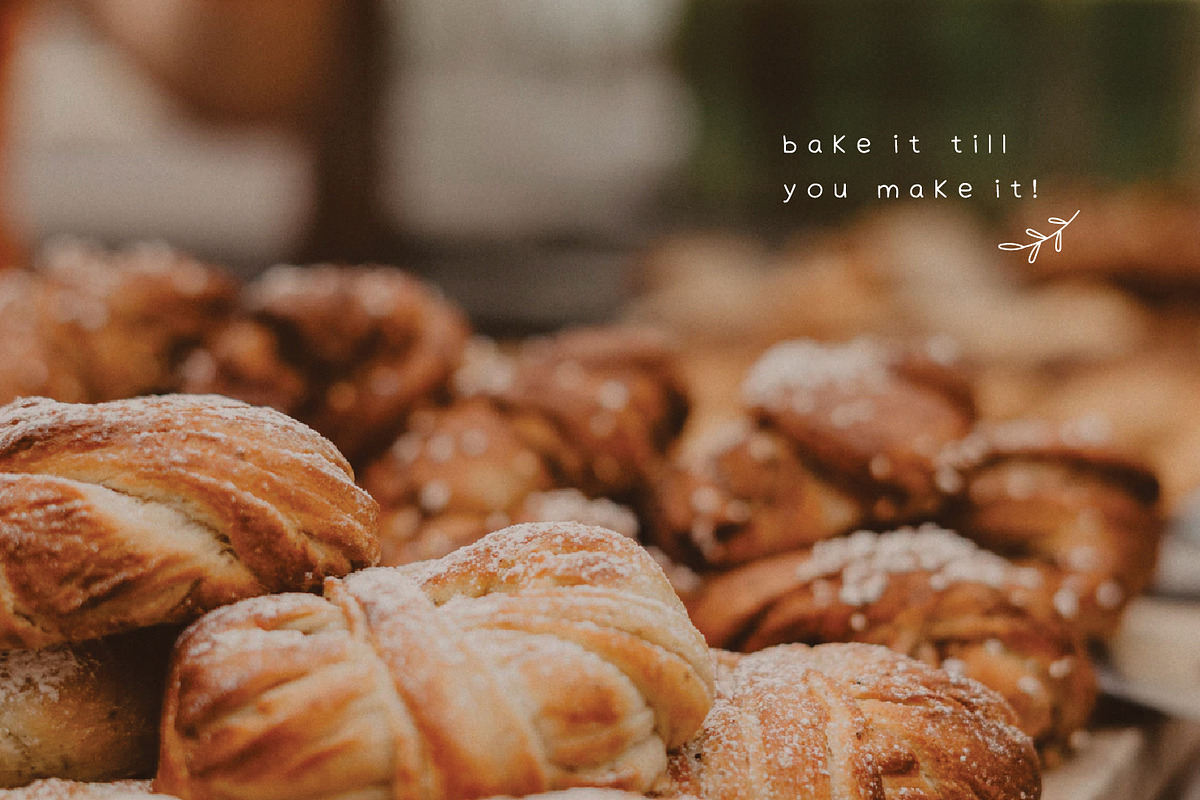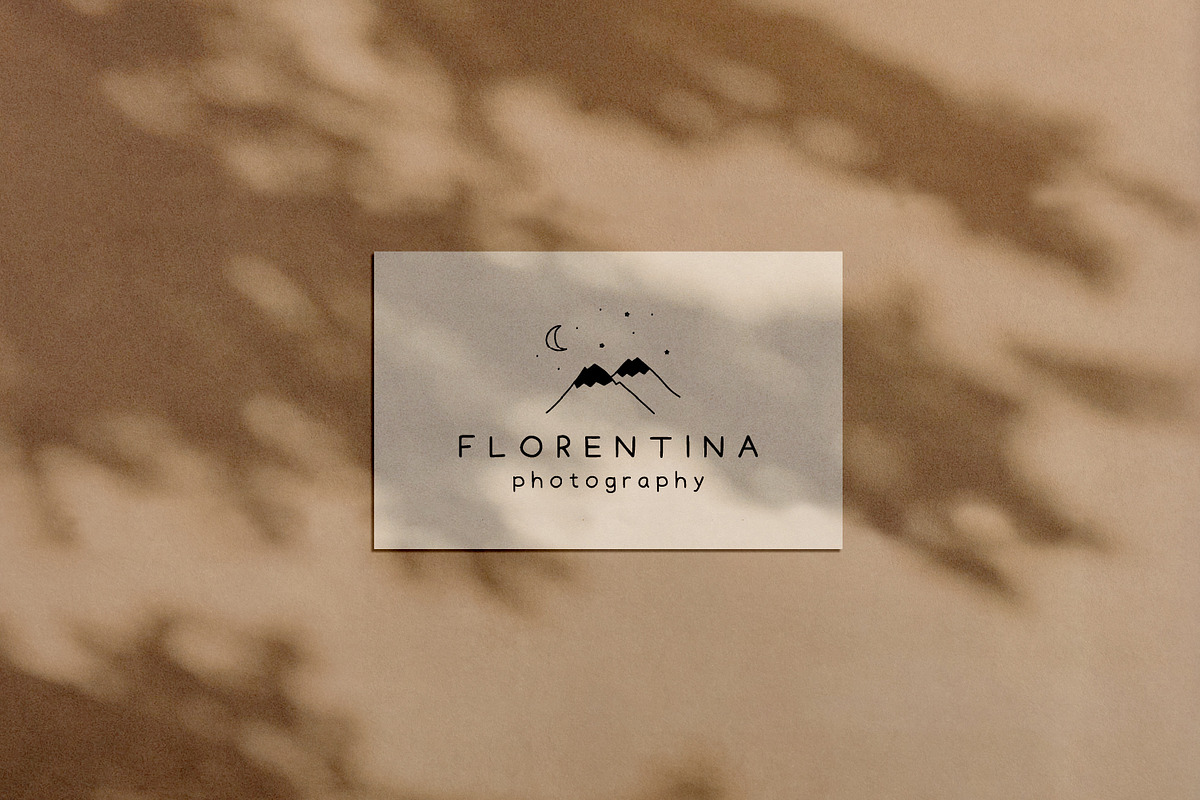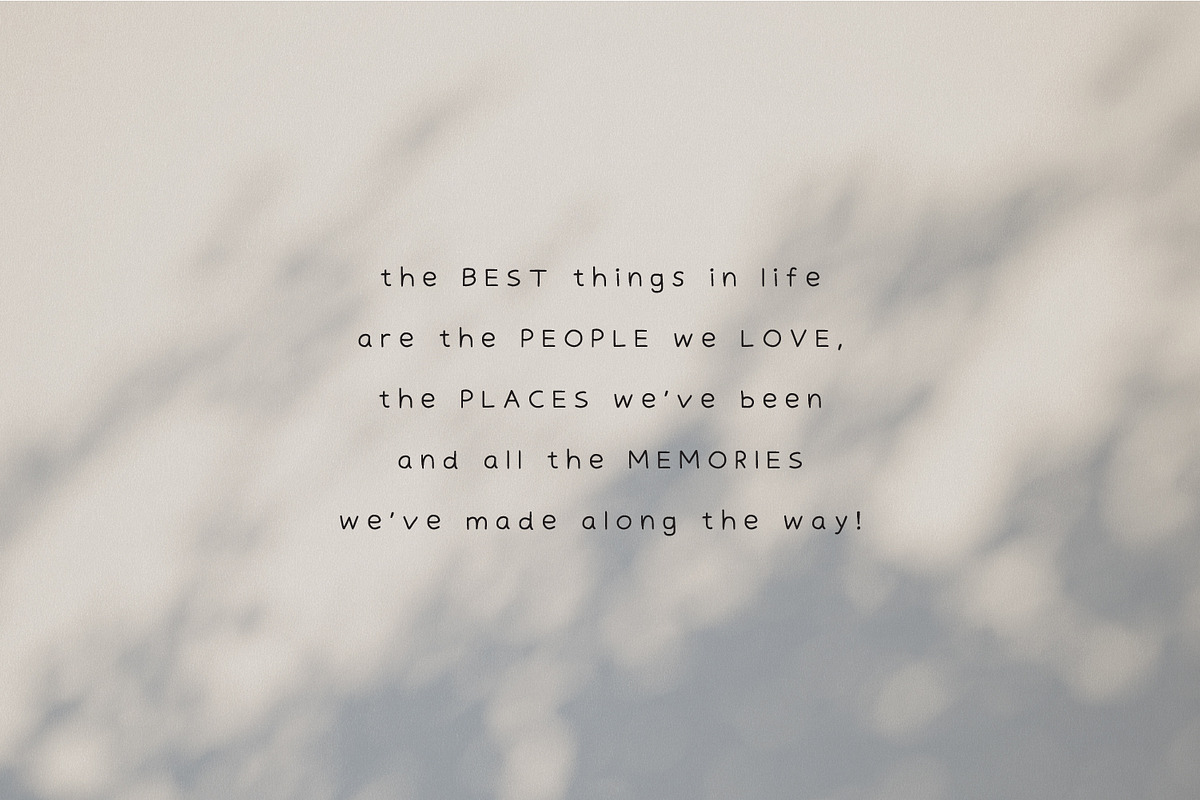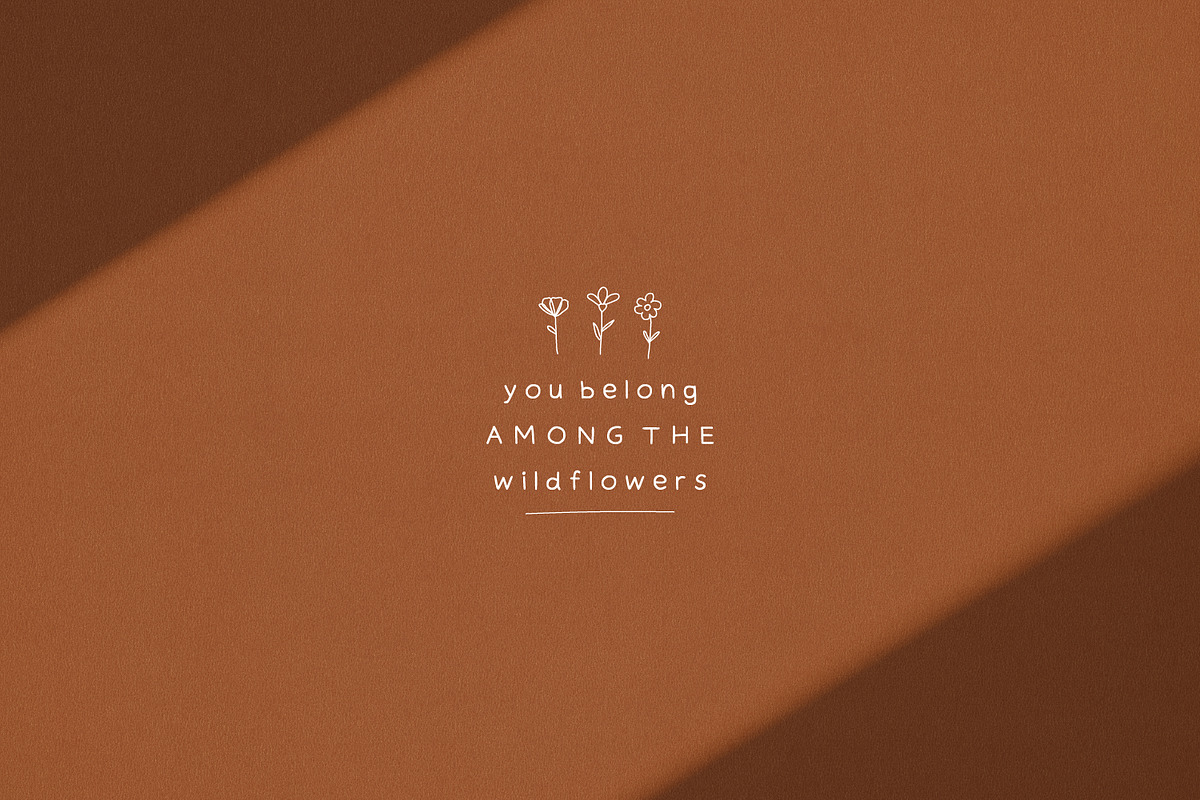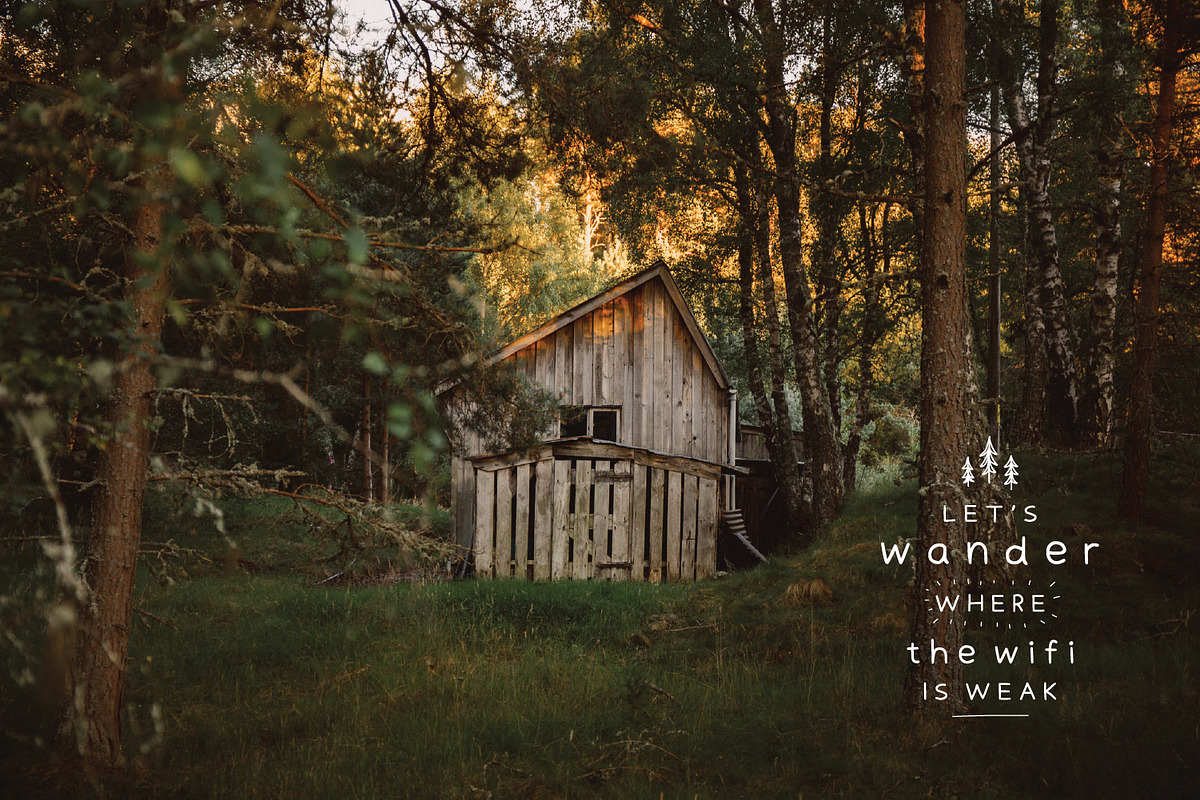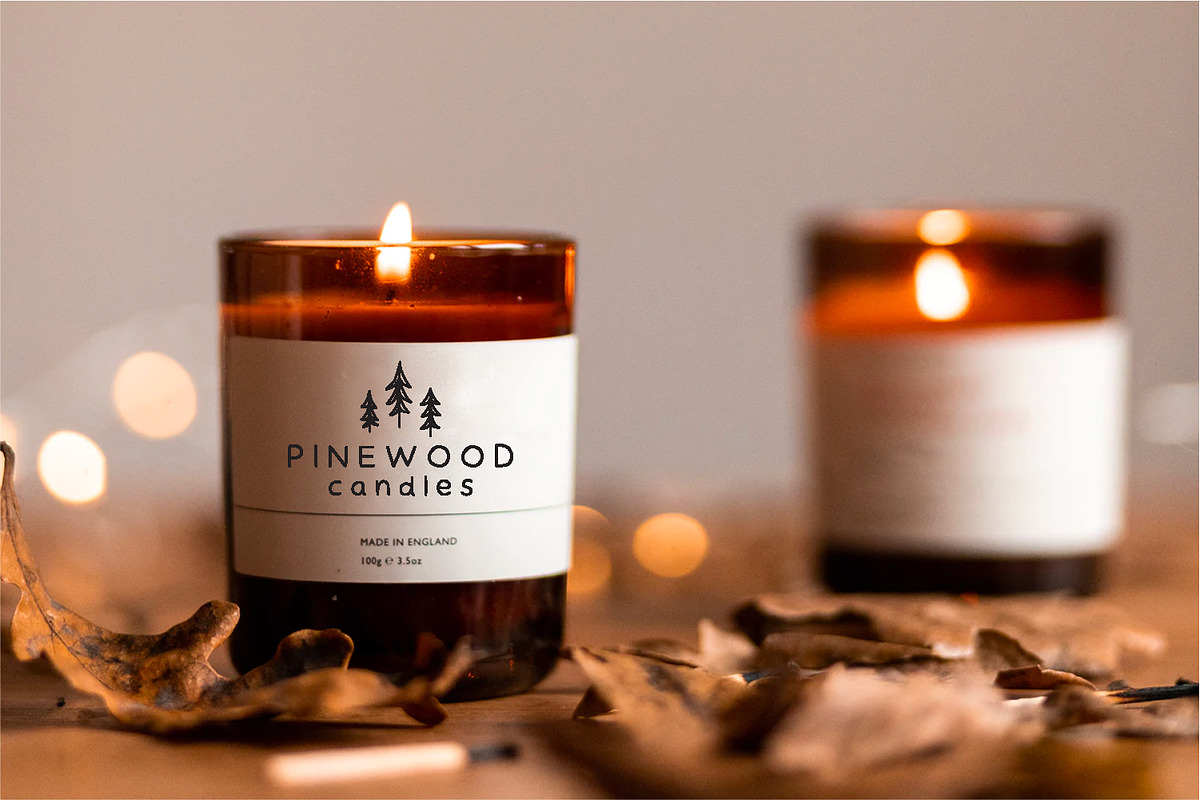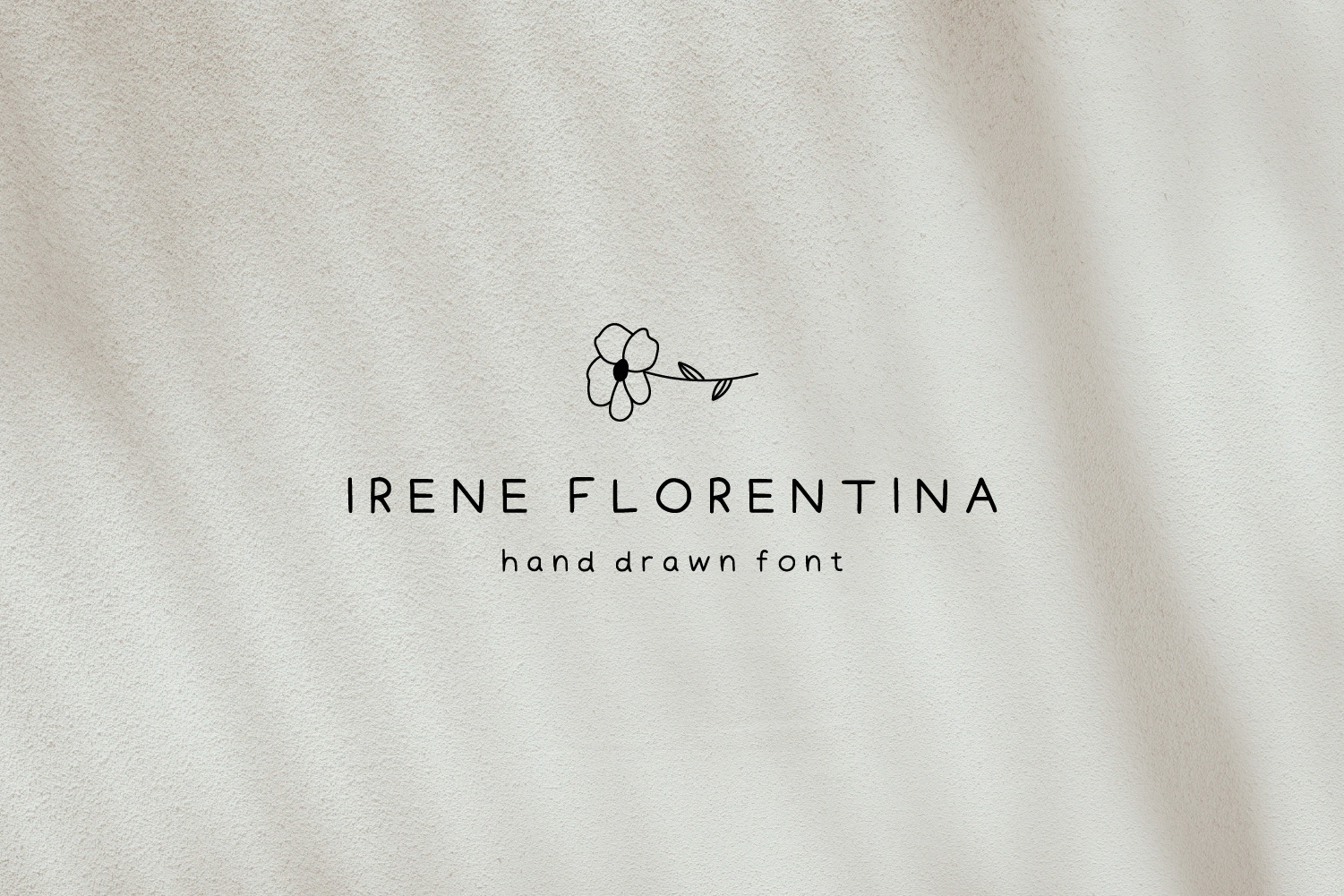
Hand Drawn Font with Illustrations
A hand drawn font based on my hand writing! The perfect font for your brand. Use it for a logo, business card and many other print materials. Use it to create your own "handwritten" Instagram posts or some packaging design.